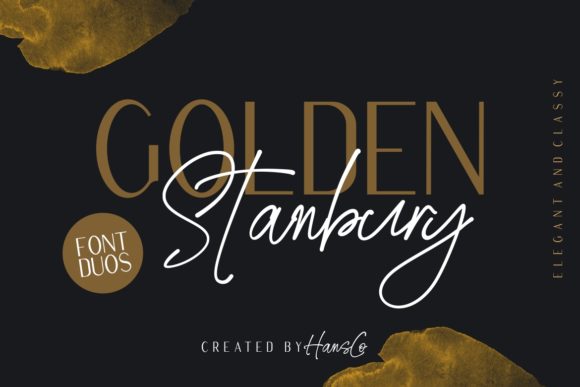
Immerse yourself in the exquisite world of Golden Stanbury, a display font that exudes romanticism and opulence. This unique font, brought to life by the talented HansCo, adds an editorial flair to your design projects, captivating your audience with its distinct charm.
Golden Stanbury's intricate curves and delicate flourishes evoke a sense of elegance and sophistication. Its sweeping strokes and graceful serifs dance across the page, creating an enchanting visual symphony. Whether you're crafting wedding invitations, designing magazine layouts, or creating stunning logos, this font is the perfect choice to make your words shine.
With Golden Stanbury, you can effortlessly transform your designs into works of art. Its timeless beauty and versatility make it the ideal font for a wide range of projects. From invitations and posters to branding and advertisements, Golden Stanbury adds a touch of luxury that elevates your designs to new heights.
Experience the magic of Golden Stanbury and let your creativity soar. Unleash the power of this extraordinary font and watch as your words come alive with elegance and allure. Embrace the romance and luxury of Golden Stanbury, and embark on a design journey that will leave a lasting impression.